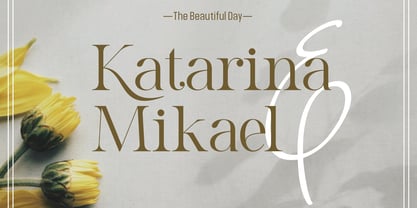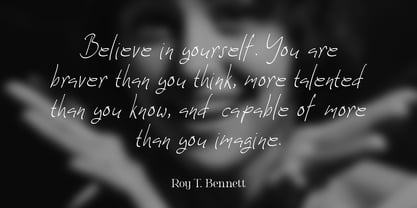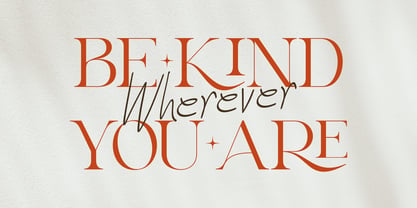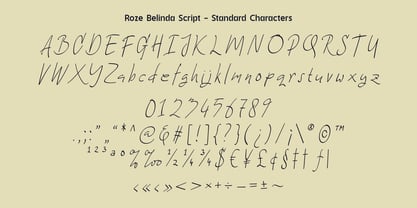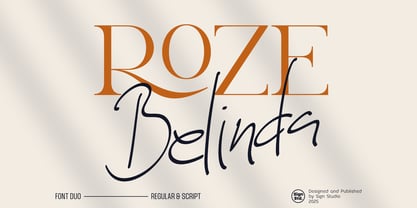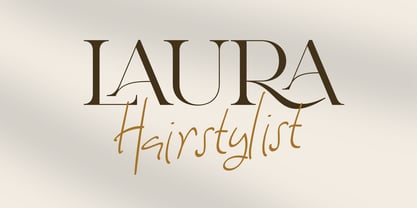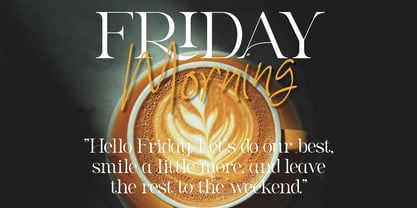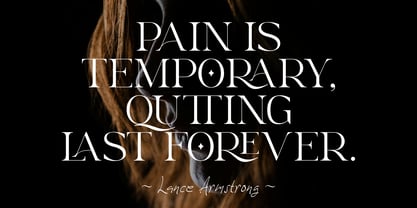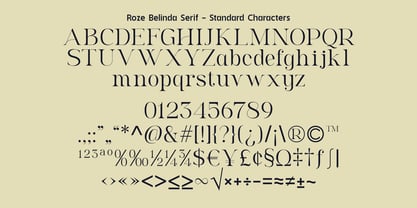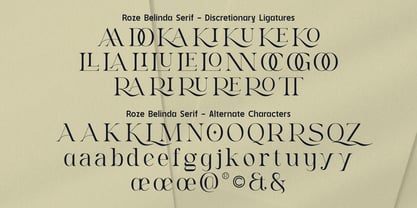
Roze Belinda
Die Schriftfamilie Roze Belinda wurde von Sugi Yanto entworfen und von Sign Studio veröffentlicht. Roze Belinda enthält 2 Stile und Familienpaketoptionen. Mehr über diese Familie
Roze Belinda is a charming and versatile font duo that combines a chic serif with a casual script. Designed to bring elegance and personality to your projects, this duo is perfect for branding, packaging, logos, and social media posts.
With its seamless pairing of the clean Regular and flowing Script styles, Roze Belinda captures both timeless sophistication and modern flair. Its graceful curves and delicate details make it an ideal choice for any design that needs a touch of class and warmth.